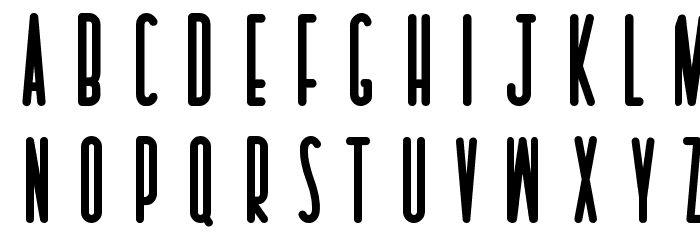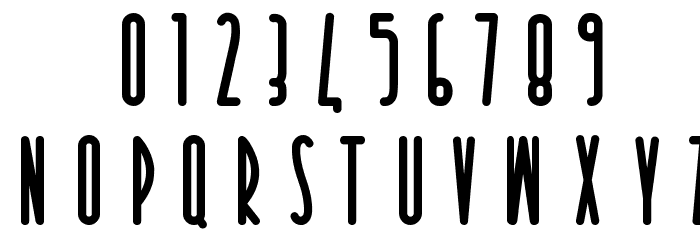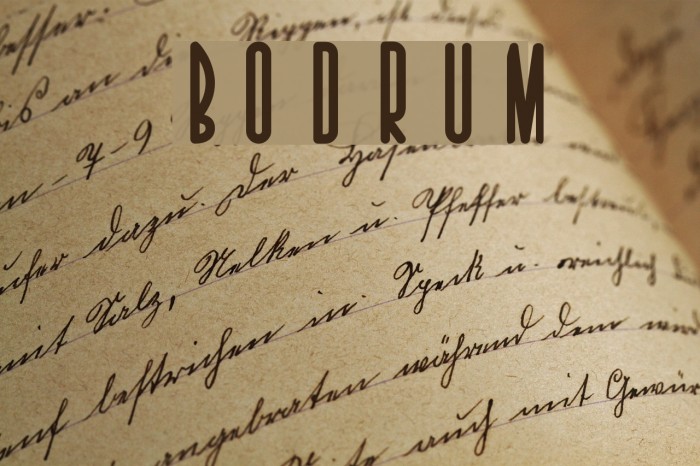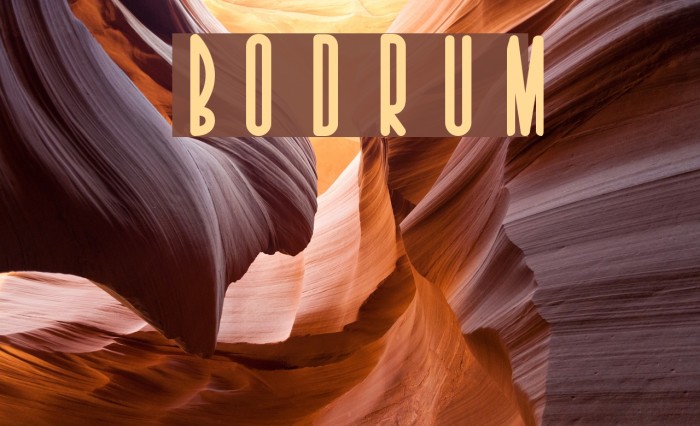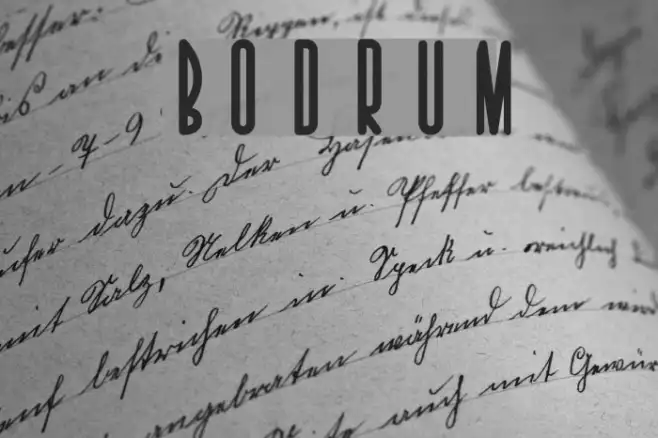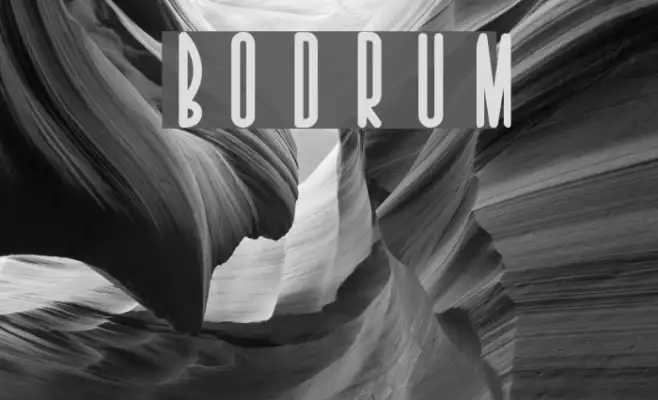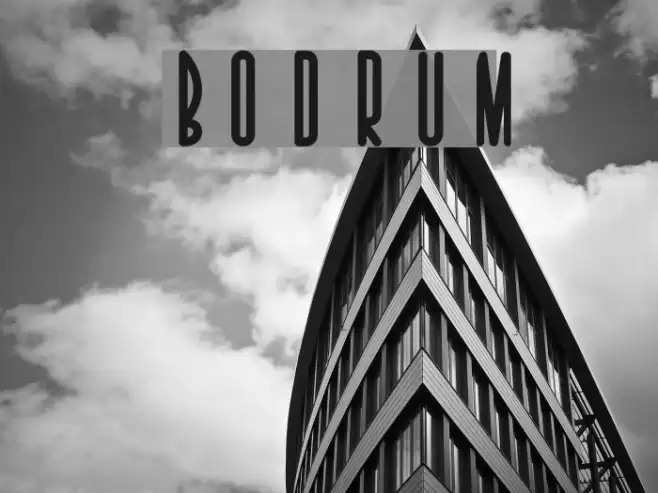
Bodrum Font
This font features a tall and narrow design with a distinctively modern and sleek appearance. The characters are elongated, giving them a unique vertical emphasis that stands out. The strokes are consistent in thickness, offering a clean and uniform look. The uppercase and lowercase letters maintain a cohesive style, with subtle variations that add character without compromising readability. The numerals are designed to match the letterforms, ensuring a harmonious overall aesthetic. Special characters are included, maintaining the same stylistic approach, making this font versatile for various applications.
A tall, narrow, and modern font with consistent stroke thickness and a sleek appearance.
- Proposed Projects: Ideal for branding projects, poster designs, and modern editorial layouts where a distinctive and stylish typeface is needed.